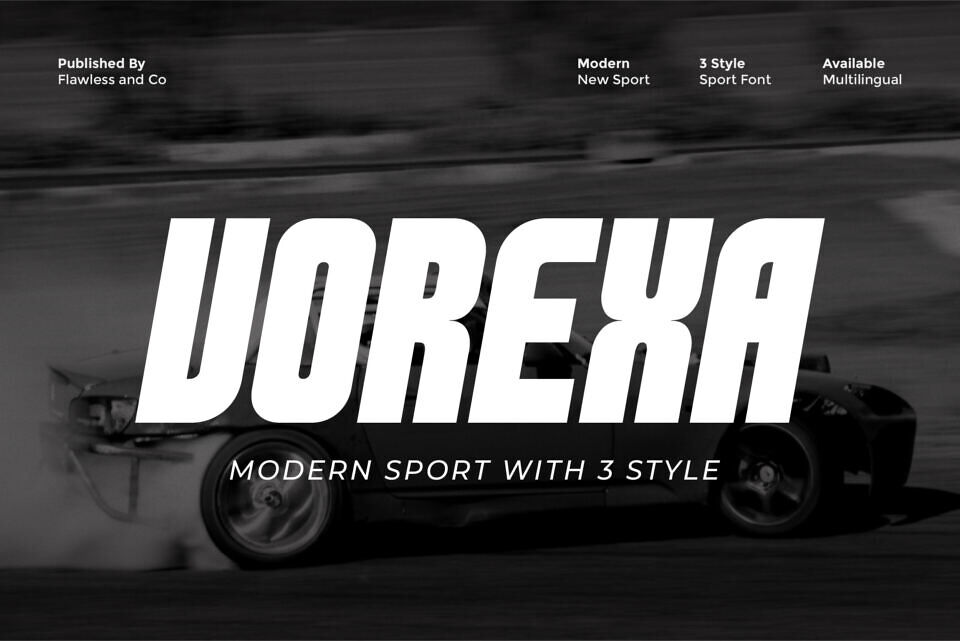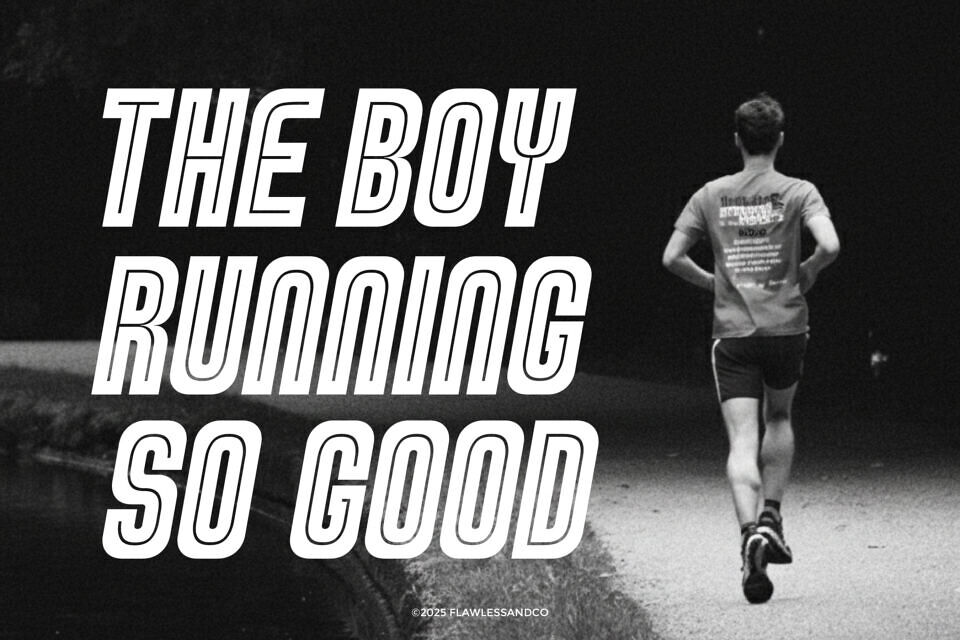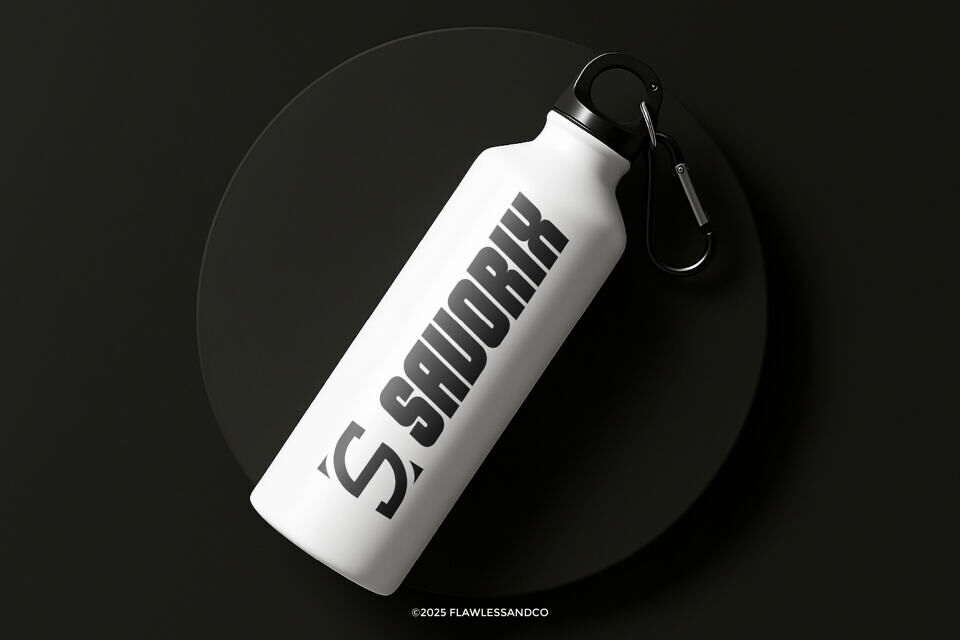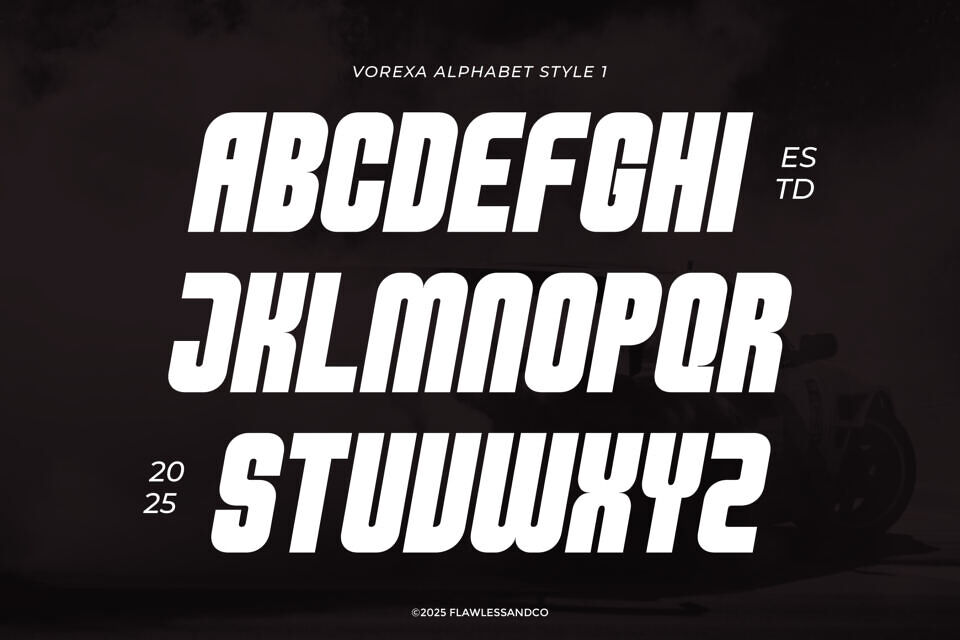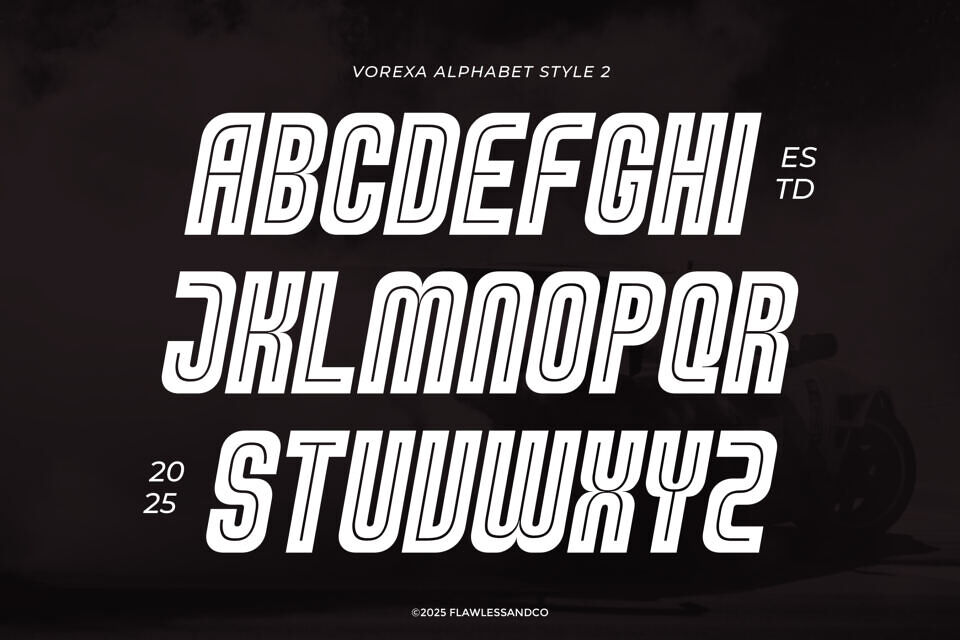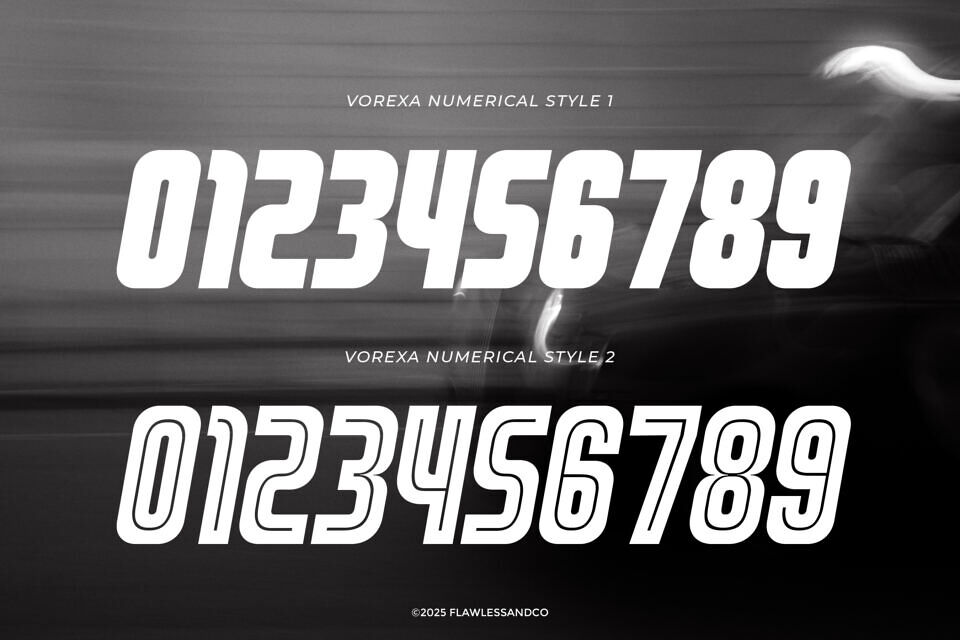
Vorexa Font
Vorexa is a high-energy modern sport font built for speed, power, and performance. Designed with sharp angles, fast motion curves, and a bold condensed shape, Vorexa delivers an aggressive and competitive visual impact.
Every letter is crafted to embody strength and adrenaline, making it perfect for designs that need to stand out with confidence and intensity. Vorexa comes with 3 sporty styles, offering flexibility for powerful headlines, standout branding, and modern competitive aesthetics.